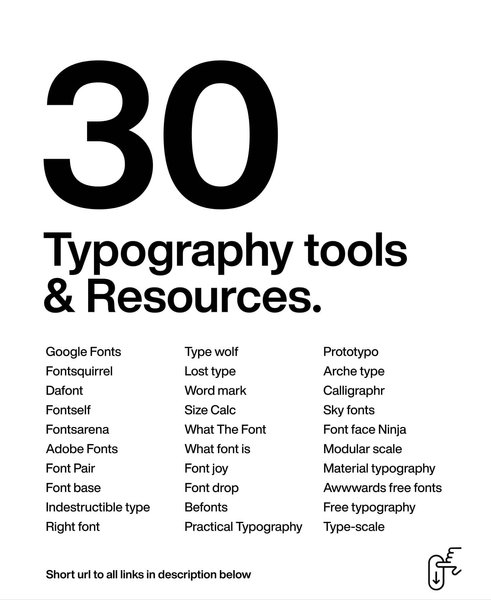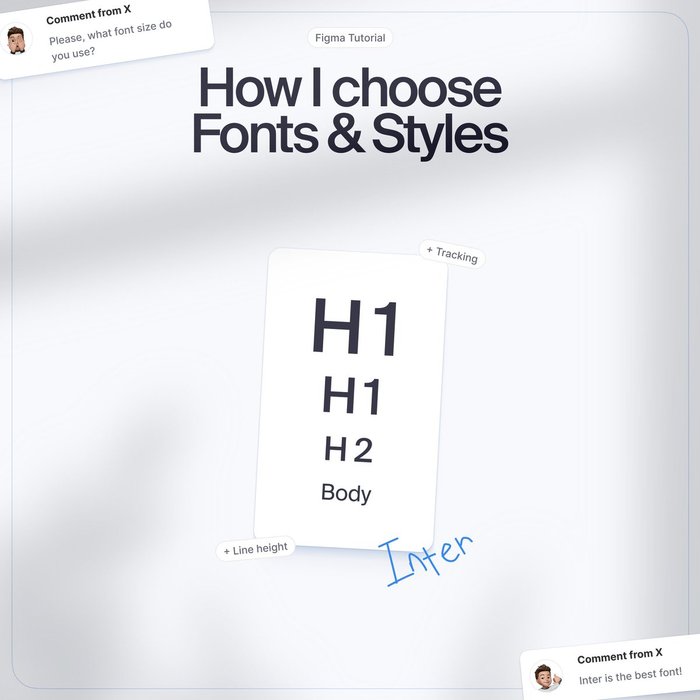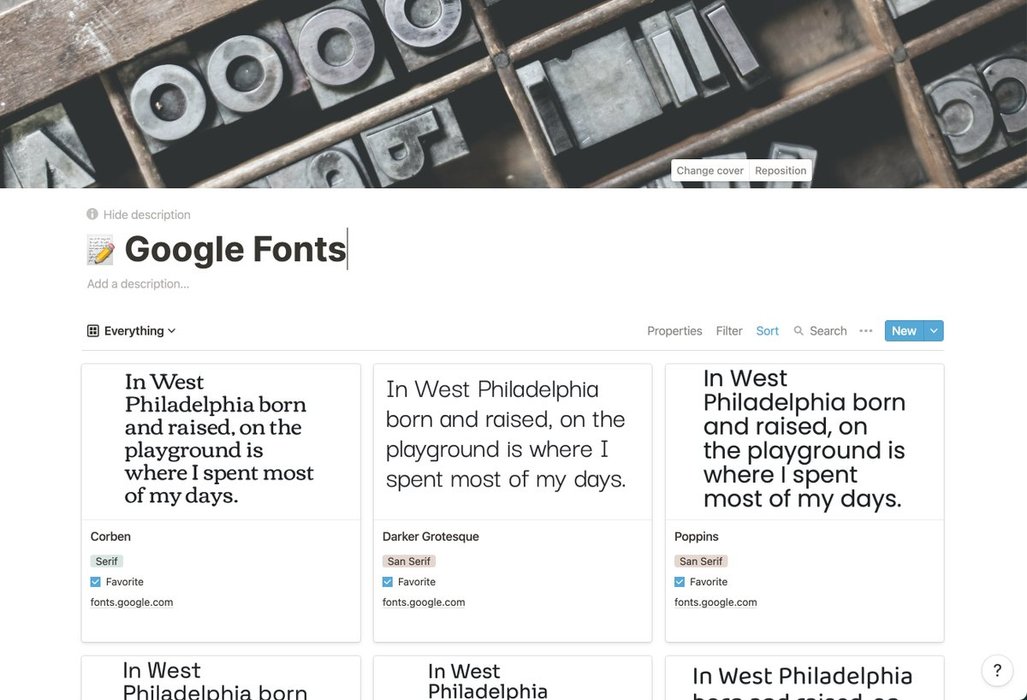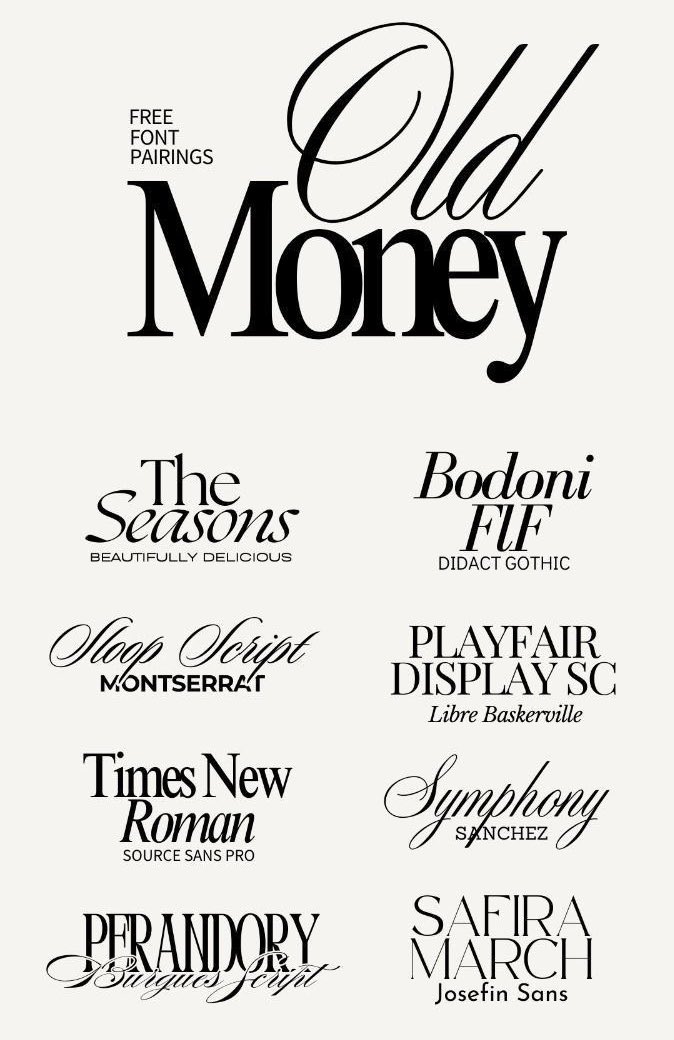
The Ultimate Guide To Choosing Fonts
typewolf.comTypewolf has an awesome curated collection of the 40 best Google Fonts:
I set my body fonts to be fairly large (again, I use Medium as a guide). Between 17 and 21 pixels, depending on the font.
My favorite fonts are, Lora, PT Serif and Merriweather. I prefer serif fonts for body and sans-serif for headlines. The... See more